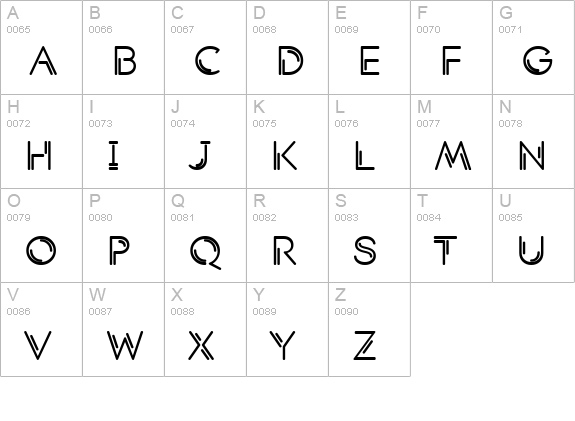
Shockwave Font Details
Shockwave font is a stunning display font that will electrify your designs with its powerful visual impact. Its bold and dynamic letterforms are reminiscent of a thunderous blast, making it perfect for creating attention-grabbing headlines, eye-catching logos, and striking posters. With its sharp edges and smooth curves, Shockwave font commands attention and demands to be noticed. Each letter is meticulously crafted, resulting in a harmonious balance between strength and elegance. Its unique design sets it apart from other fonts, giving your projects a distinct and memorable touch. What makes Shockwave font even more appealing is that it is available for free download at FontsMarket.com. This means that you can easily add this electrifying font to your collection without any cost. Whether you are a graphic designer, a web developer, or a creative enthusiast, Shockwave font offers you the freedom to express your ideas and create stunning visuals. Whether you are designing a high-energy sports poster, an electrifying music album cover, or a powerful logo for a cutting-edge brand, Shockwave font will give your project the impact it deserves. Download Shockwave font for free at FontsMarket.com and let your creativity take flight.